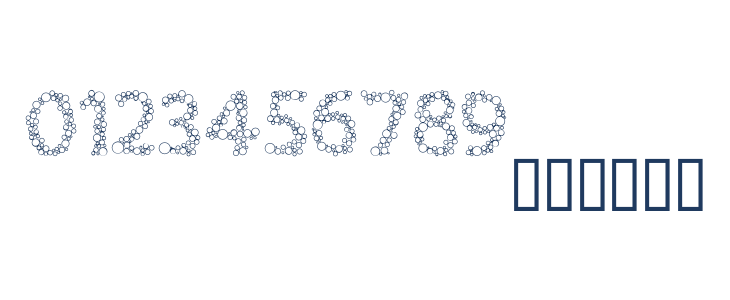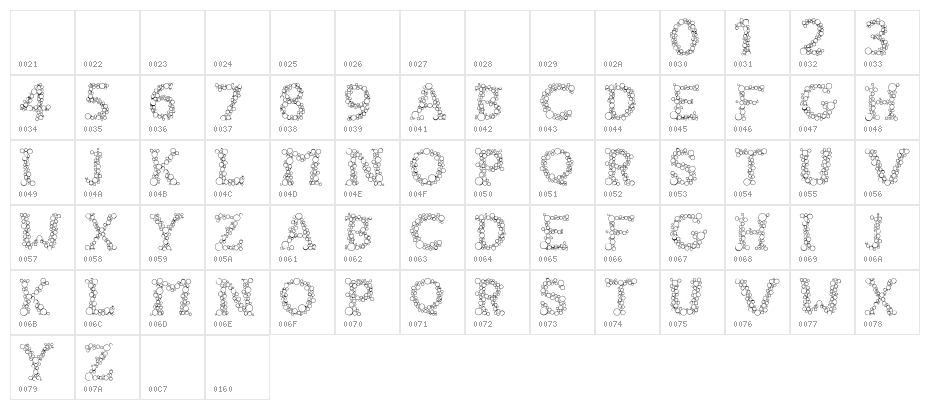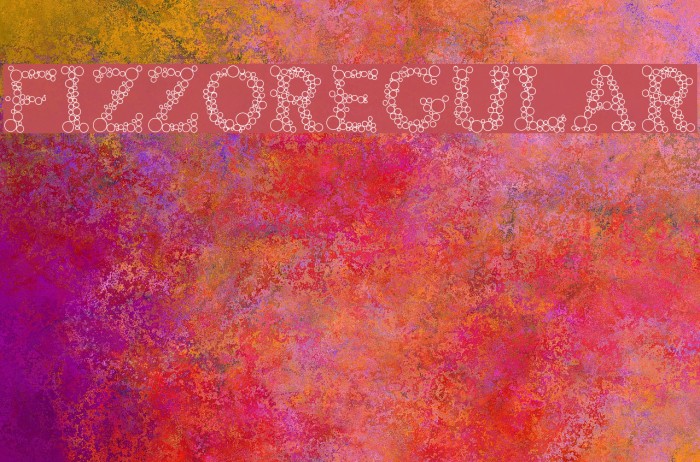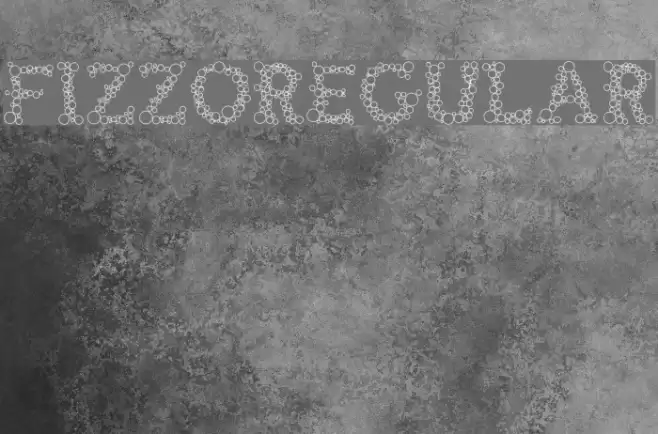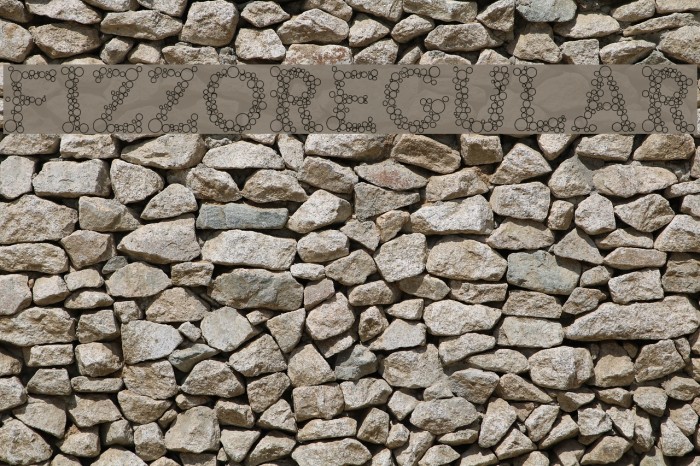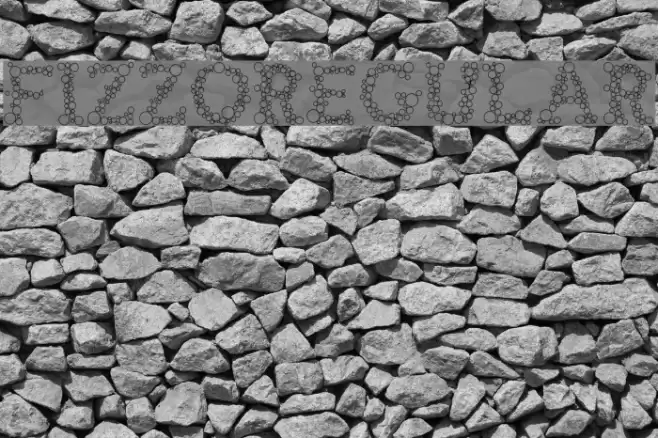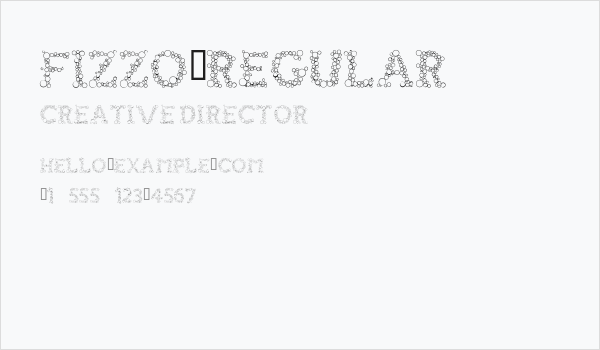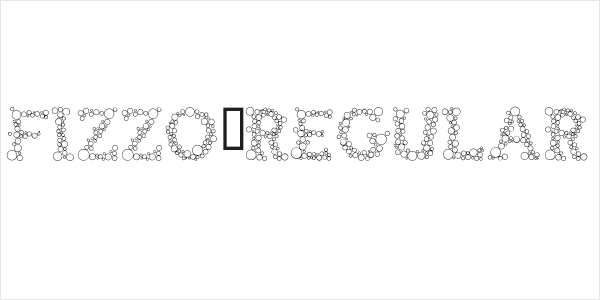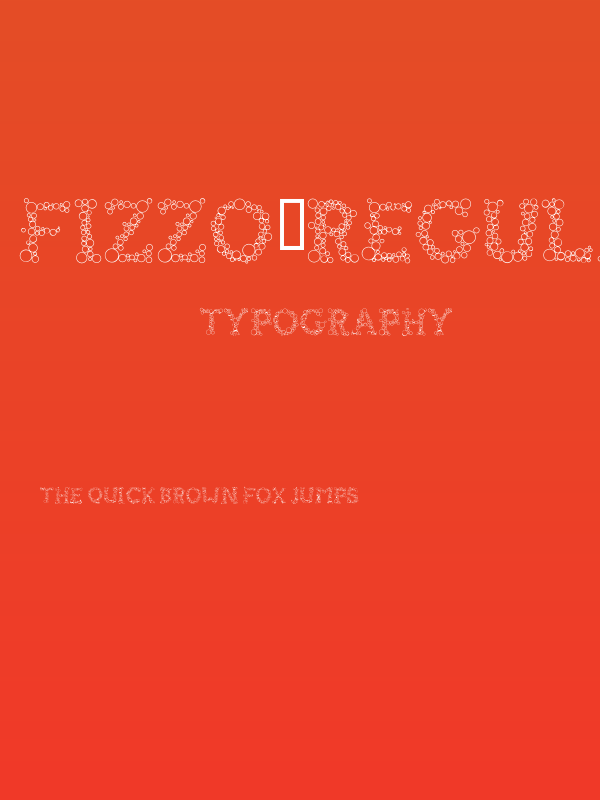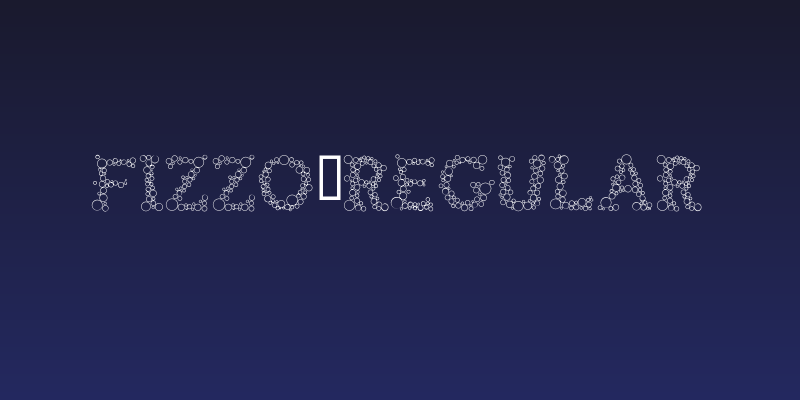
FIZZO-Regular Font
FIZZO-Regular Description
This font features a unique and playful design composed of interconnected circles forming each character. The letters and numbers are constructed with a series of small, overlapping circles, creating a bubbly and dynamic appearance. The design is consistent across uppercase, lowercase, and numerical characters, maintaining a cohesive look. The font's whimsical style makes it stand out, offering a sense of fun and creativity. It's ideal for projects that require a lively and engaging visual element, such as children's books, playful branding, or creative posters.
| Proposed Projects | Ideal for children's books, playful branding, creative posters, and party invitations. |